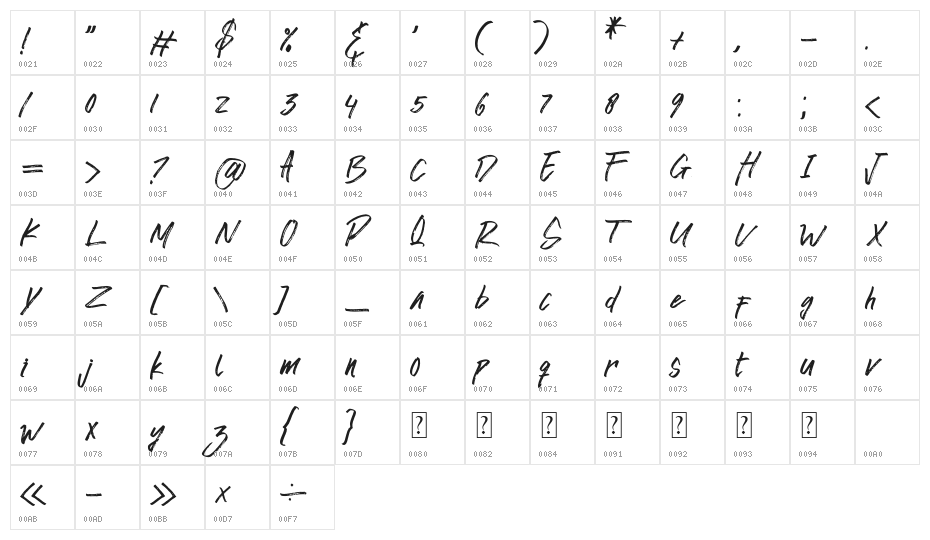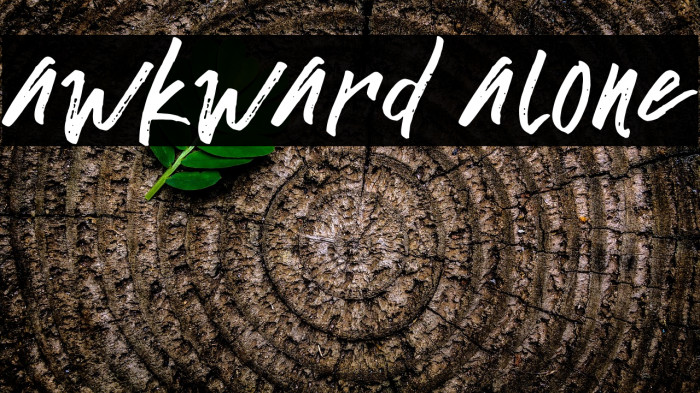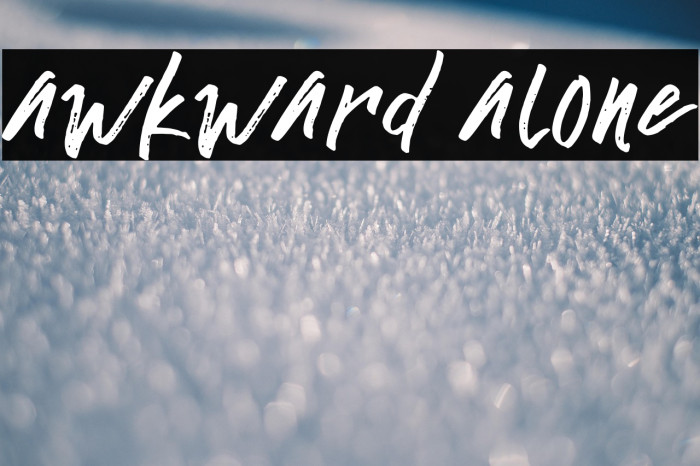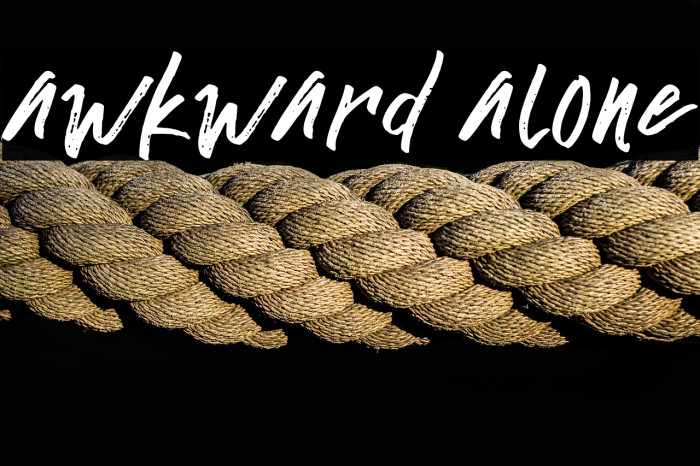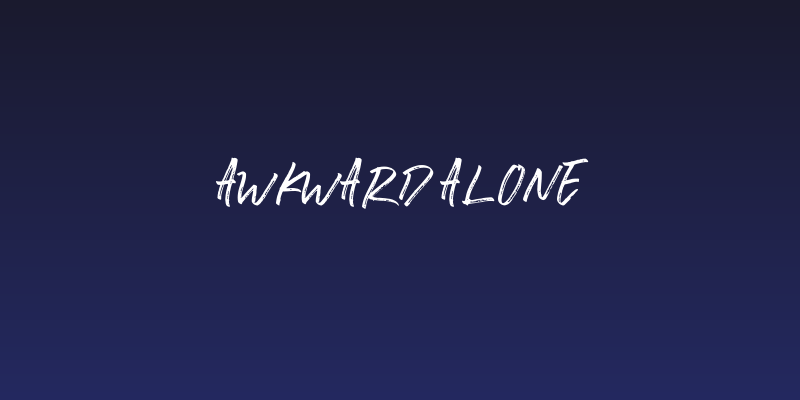
awkward alone Font
awkward alone Description
This font exudes a dynamic and energetic feel, characterized by its bold and expressive brush strokes. The letters are crafted with a sense of movement and spontaneity, giving it a handwritten appearance. The uppercase and lowercase letters maintain a consistent style, with varying stroke widths that add to its lively nature. The numbers and special characters follow the same aesthetic, ensuring a cohesive look across all elements. This font is perfect for projects that require a personal touch or a creative flair, making it ideal for artistic designs, posters, and branding materials.
| Use Case | Logos, Headlines, Artistic designs |
| Proposed Projects | Ideal for artistic designs, posters, branding materials, and any project requiring a personal touch. |